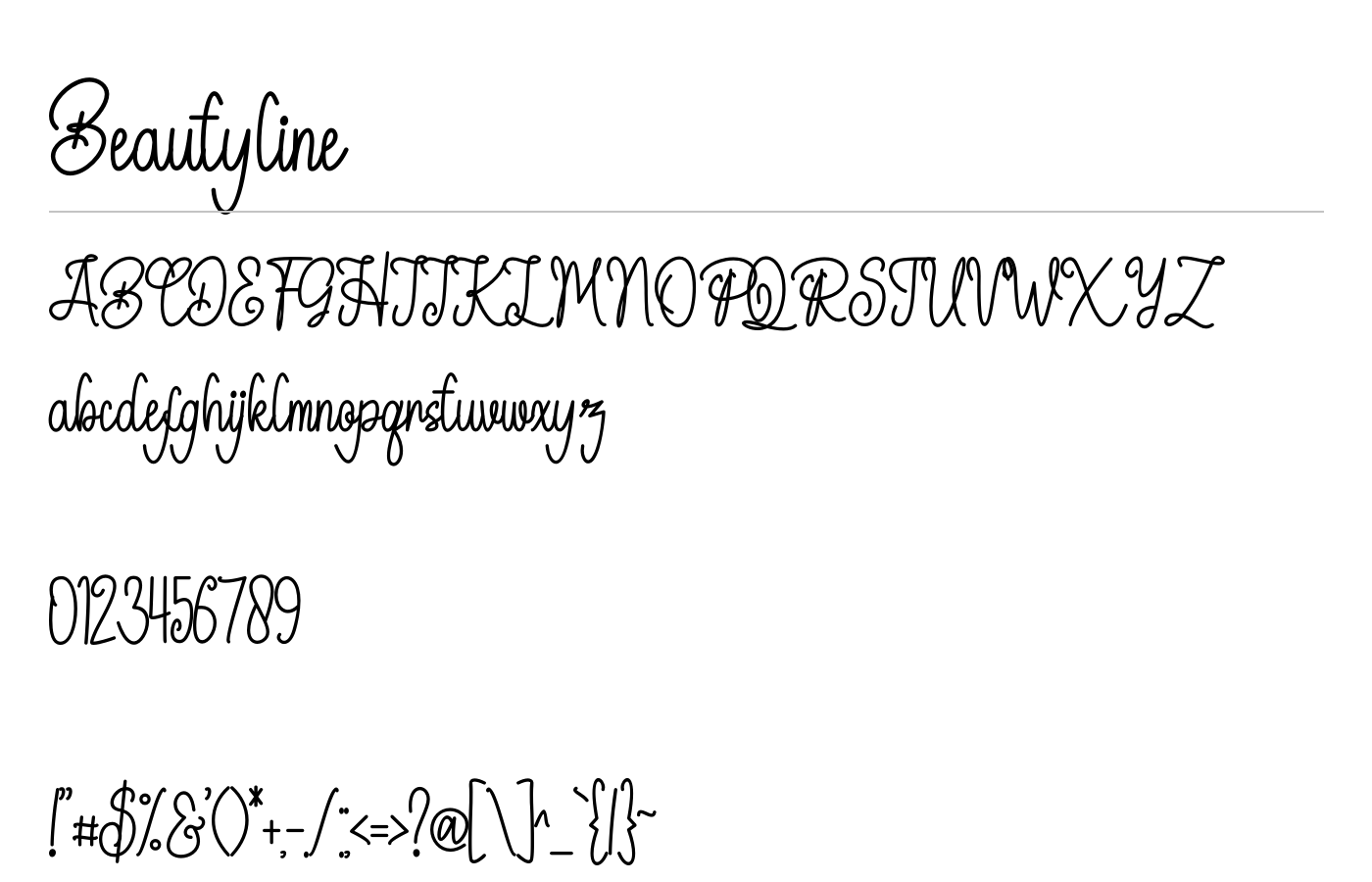
Beautyline is a delicate script font featuring elegant, flowing letterforms with slender strokes and subtle loops that evoke a graceful, handcrafted feel. Its consistent thin weight and playful curls make it perfect for stylish branding, invitations, and feminine designs that seek a charming, approachable personality. This font works best in display uses where its intricate details can shine, adding a touch of sophistication and warmth.
Beautyline Font
About Beautyline Font
| Font family | Beautyline Font |
| Designer | Arief Tri Sulistiyono |